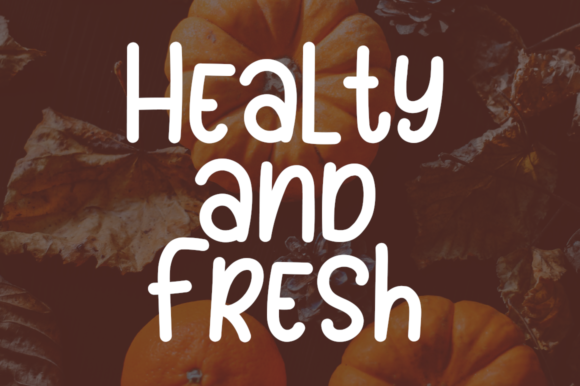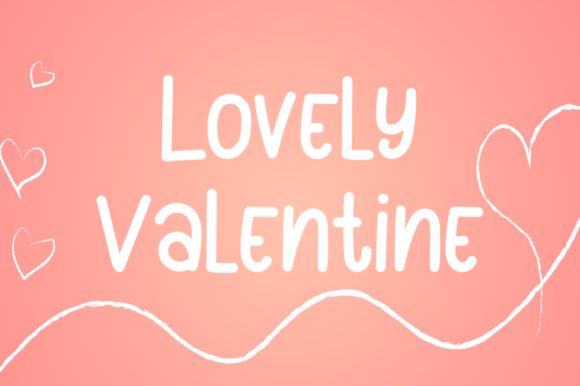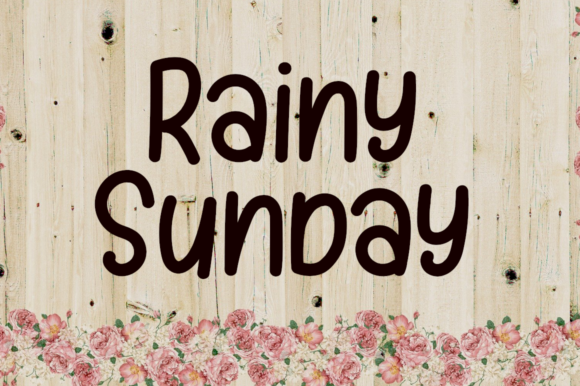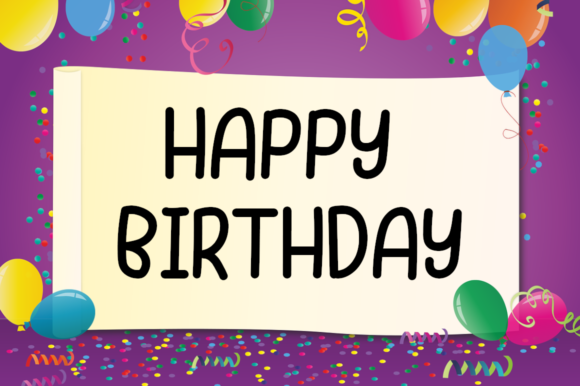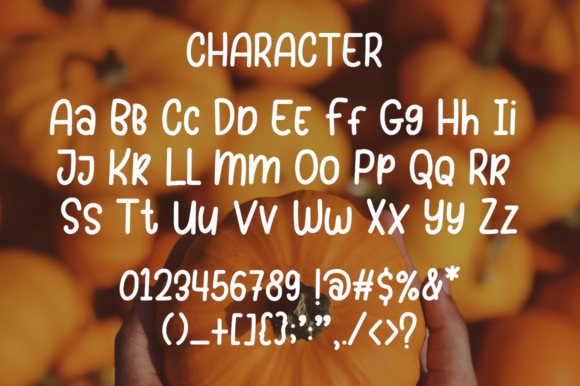
Sunday Pumpkins Font
About Sunday Pumpkins Font
Sunday Pumpkins is a unique and playful script that will turn any message into a true standout. Ignite your creativity with its authentic and friendly feel!